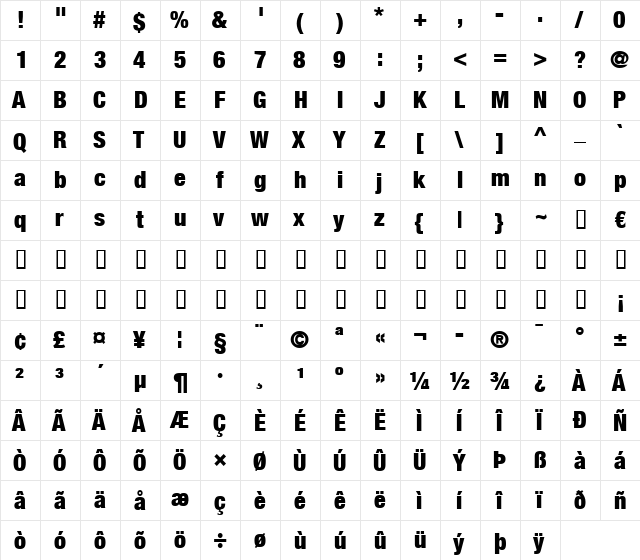
HelveticaNeue LT 97 BlackCn Regular Font Preview
HelveticaNeue LT 97 BlackCn Regular
HelveticaNeue LT 97 BlackCn Regular Font Details
Design Context for HelveticaNeue LT 97 BlackCn Typeface
HelveticaNeue LT 97 BlackCn offers clean, dependable letterforms without strong stylistic allegiance, making it a practical choice for designers who need flexibility. Its slender proportions lend an understated elegance to any composition.